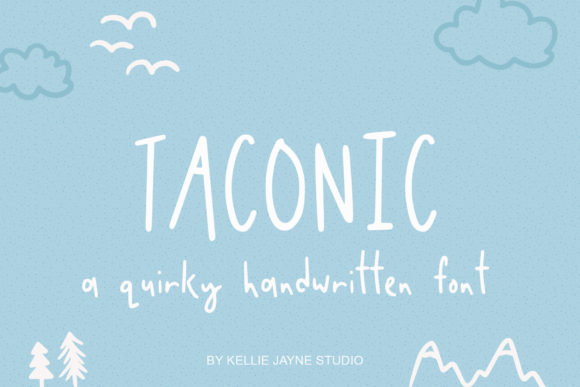
Meet Taconic, the script font that captures the whimsical charm of handwritten notes. Inspired by a scenic hiking journey through the Taconic mountain range, this font exudes a playful spirit, inviting you to create designs that resonate with personality and authenticity.
Taconic's unique character lies in its meticulously crafted stylistic alternates for both uppercase and lowercase letters. With over 50 discretionary ligatures at your disposal, you can unleash your creativity and add a touch of delightful unpredictability to your designs. This dynamic range of options ensures that every word, every phrase, becomes a visual masterpiece.
Whether you're crafting editorial designs that demand attention, marketing materials that aim to captivate, or blog posts that yearn for a personal touch, Taconic is your perfect companion. Its versatile nature lends itself effortlessly to various design endeavors, allowing you to infuse your projects with a distinctive charm.
Experience the magic of Taconic and let your designs dance with individuality. Embrace the allure of handwritten elegance, let your words flow with grace, and watch as your creations captivate and inspire.